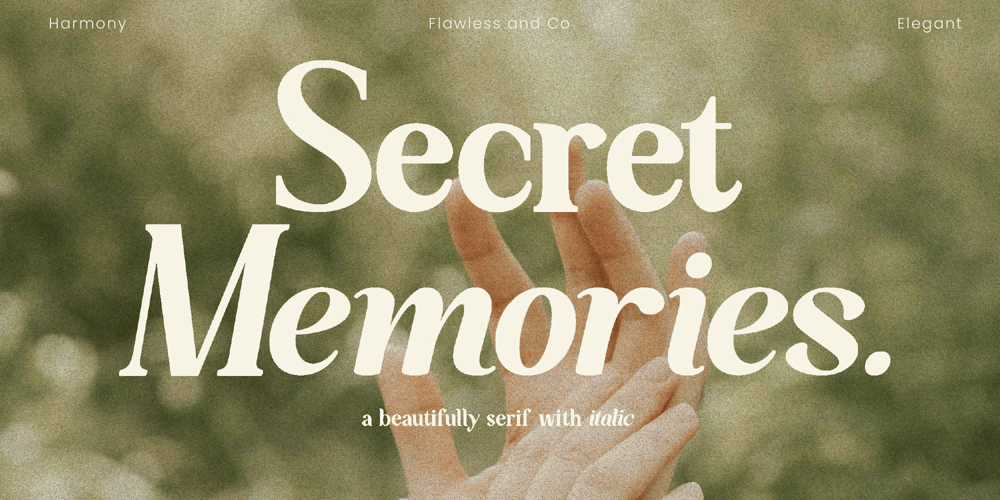
Secret Memories Font Family was designed by Achmad Yani and published by Flawlessandco. Secret Memories contains 2 styles and family package options. Secret Memories is a Serif Italic Font with a classy and elegant style in each character, so it’s fitted for some wedding invitation display.There’s some connected letters and some alternates that suitable for any graphic designs such as branding materials, t-shirt, print, business cards, logo, poster, t-shirt, photography, quotes .etcThis font support for some multilingual. Also contains uppercase A-Z and lowercase a-z, alternate character, numbers 0-9, and some punctuation.If you need help, just write me! Thanks so much for checking out my shop!